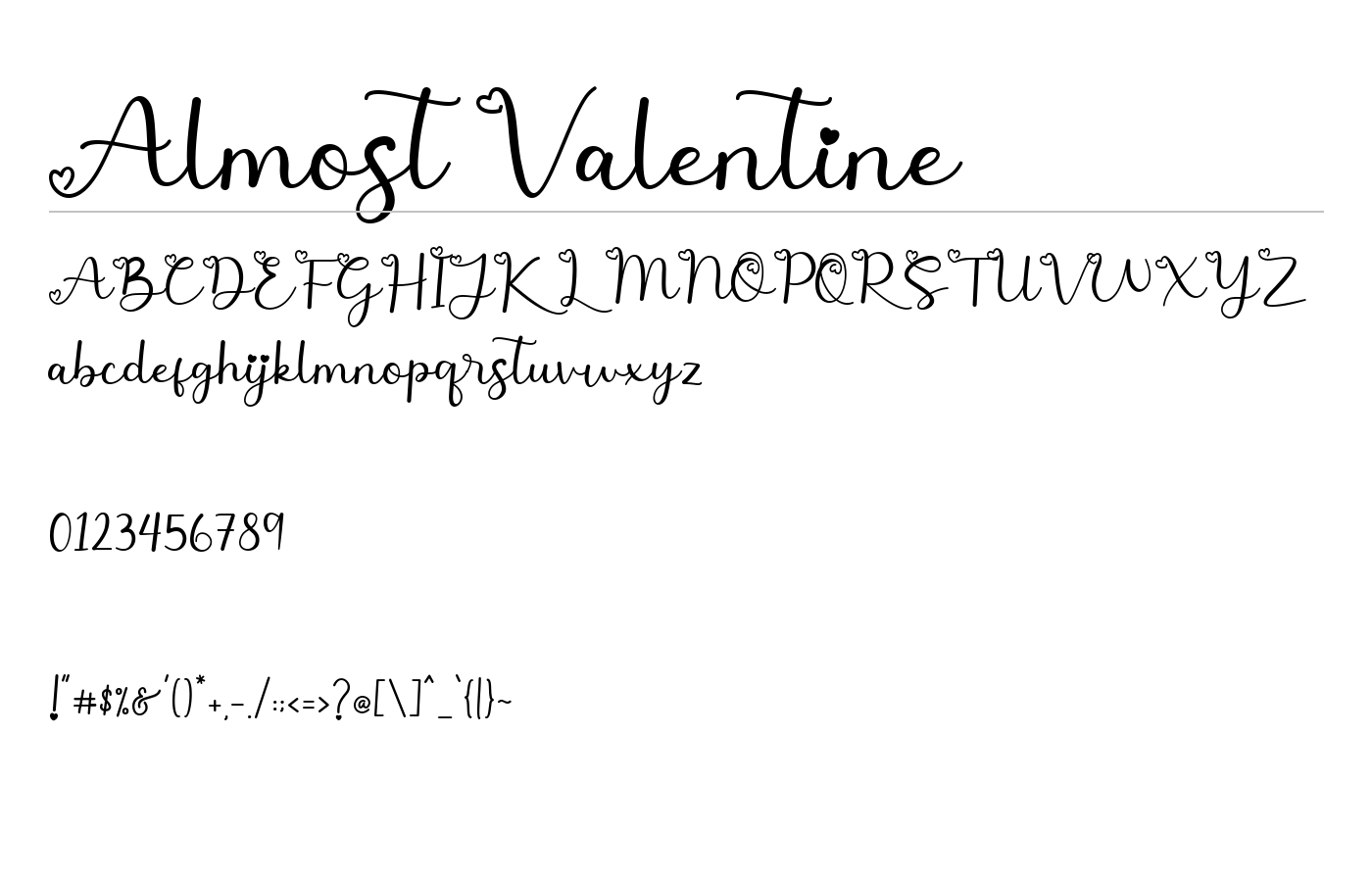
Almost Valentine is a charming handwritten script font featuring playful, flowing strokes with delicate heart-shaped accents that add a whimsical and romantic touch. Its light weight and airy, casual style make it perfect for designs that want to convey warmth, friendliness, and love, such as wedding invitations, greeting cards, and feminine branding. The elegant yet approachable feel of this font works beautifully in both headlines and decorative text, adding a sweet, personal flair.
Almost Valentine Font
About Almost Valentine Font
| Font family | Almost Valentine Font |
| Designer | AEN Creative Studio 2022 |